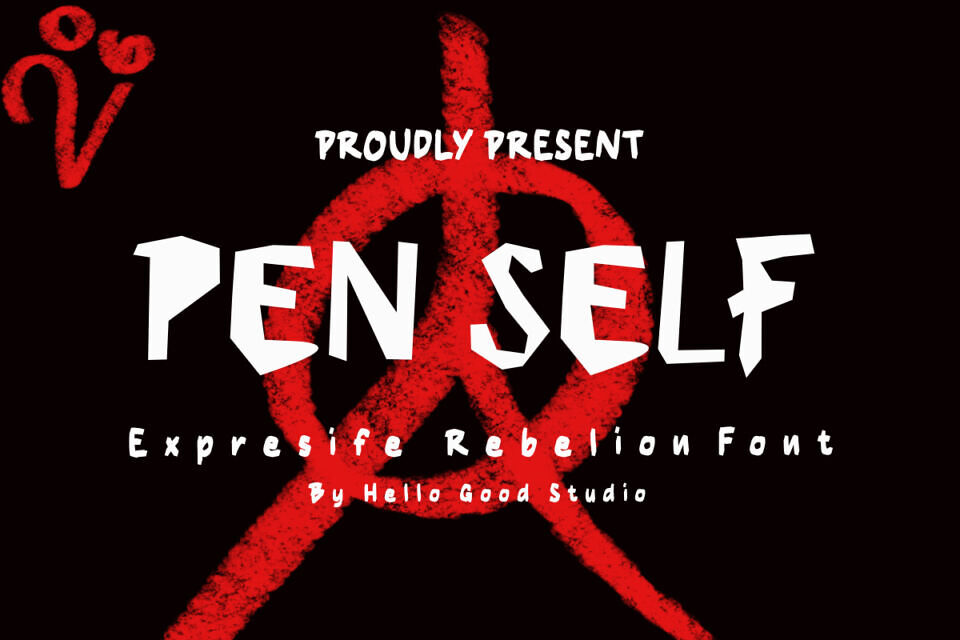
Pen Self by Studio Hello Good is a raw, energetic Hand-drawn font featuring 133 glyphs and 199 characters. Blending casual penmanship with a bold street aesthetic, its edgy style makes it perfect for urban clothing brands, logos, music flyers, and rebel-themed designs.